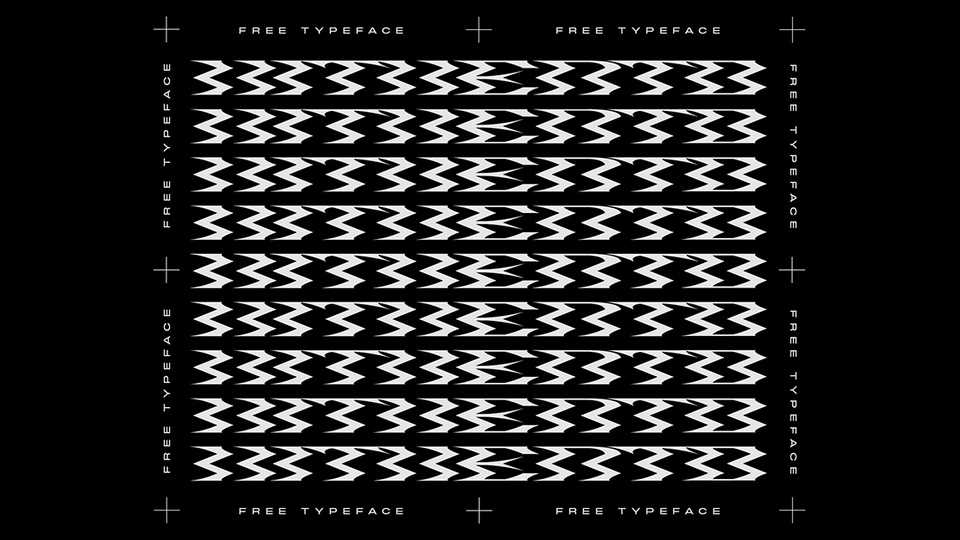
Hitherto Font › Fontesk – Download Grátis
Download Hitherto font, a contemporary display font inspired by sharp lines and experimental typography. Idea of Hitherto was to make all letters as uniform as they can be, and keep the zig-zag look on all of them.